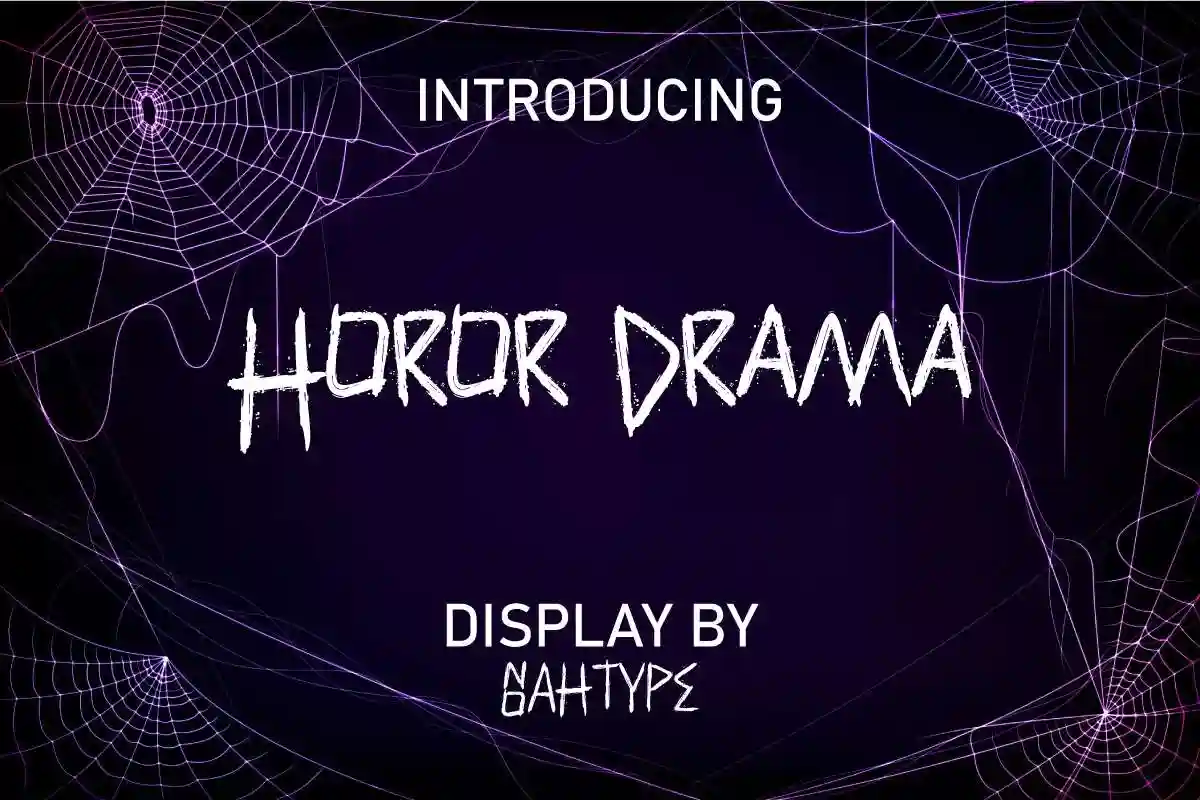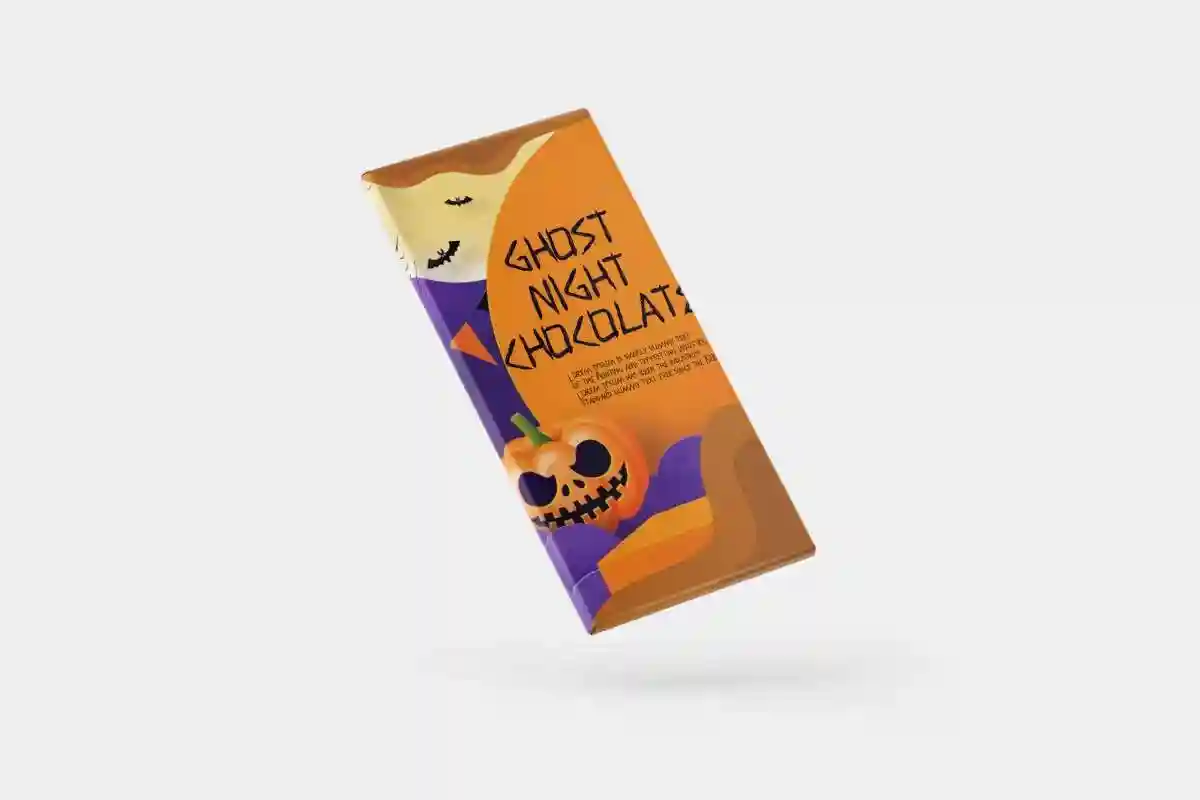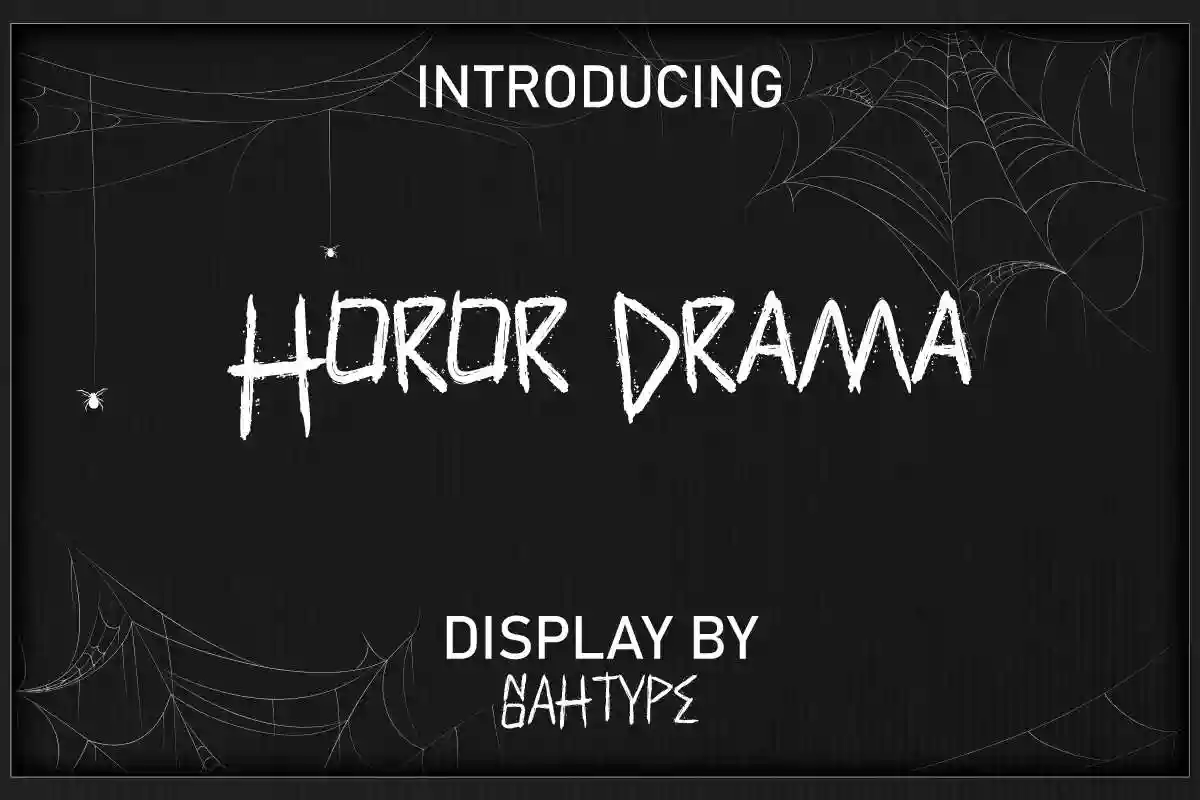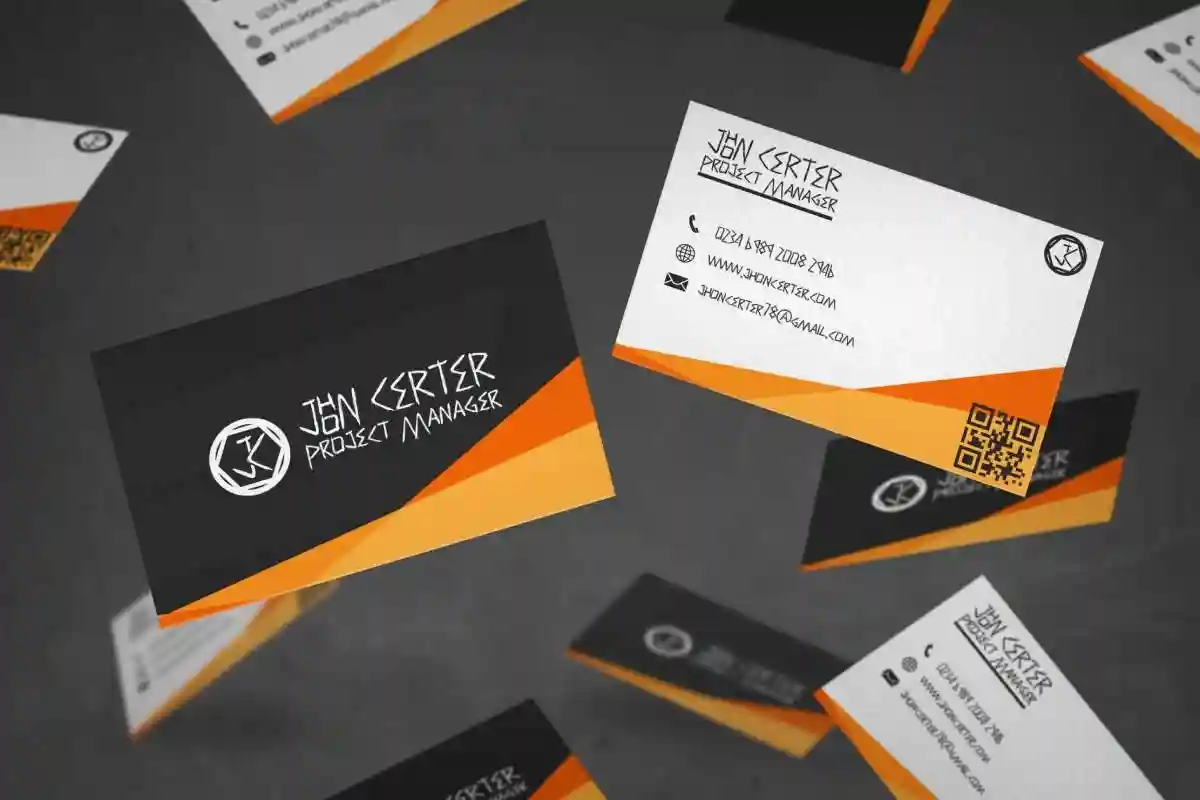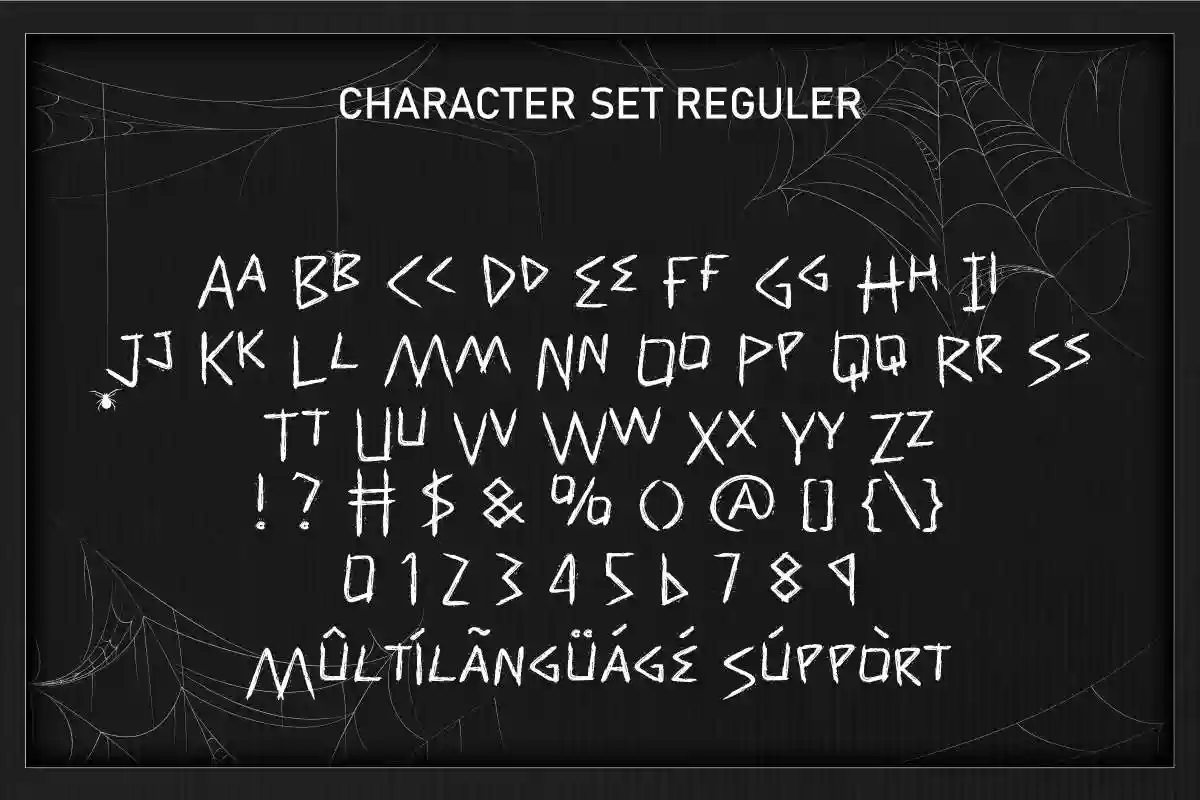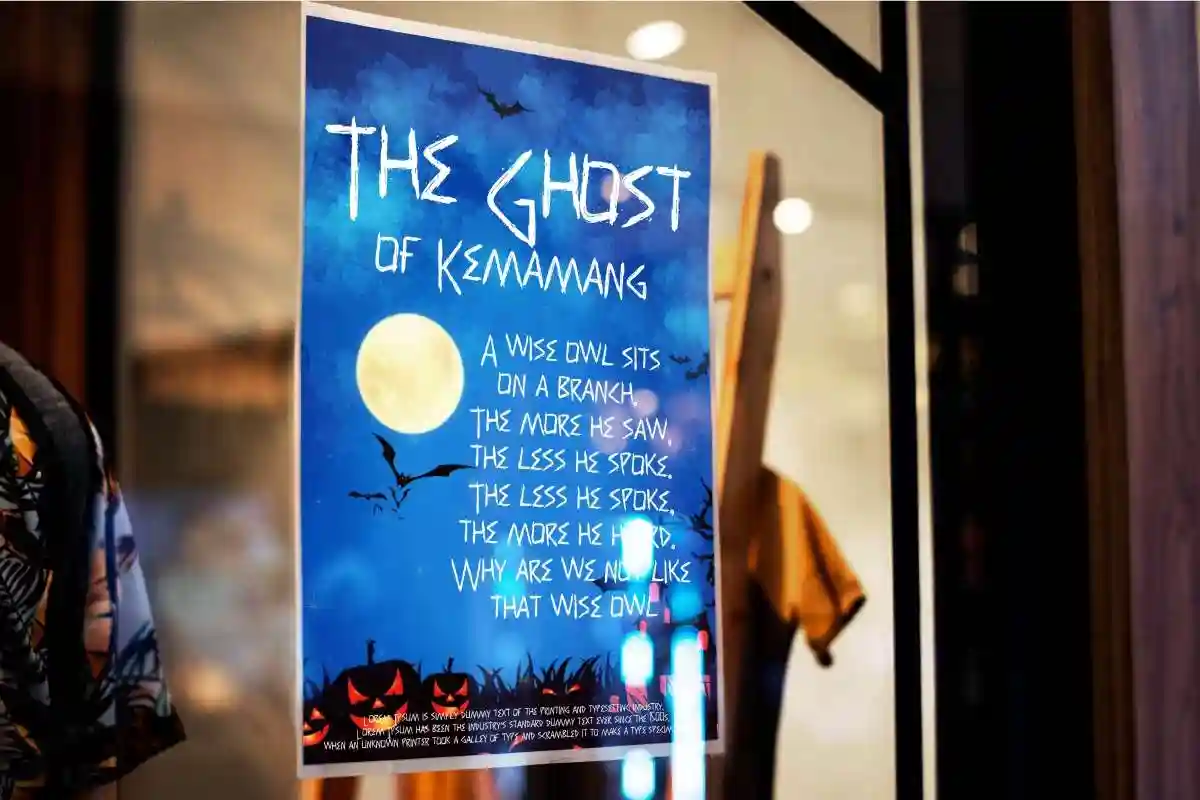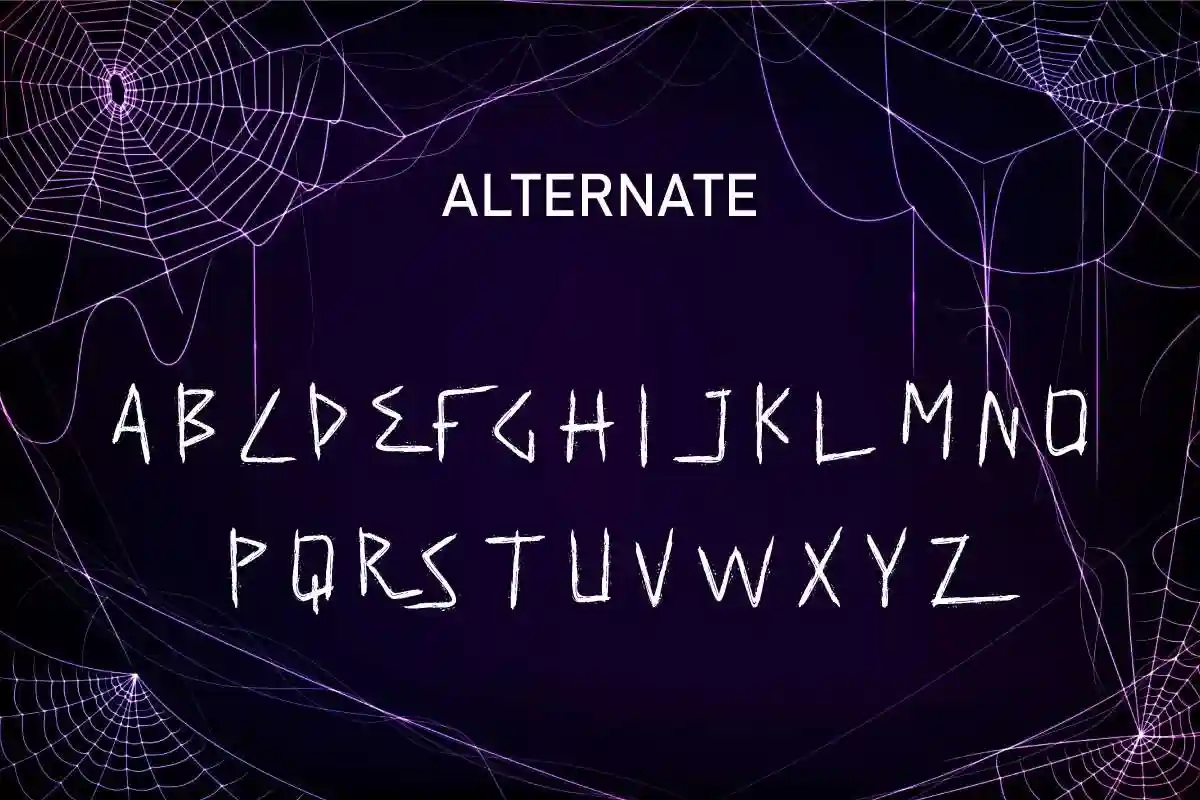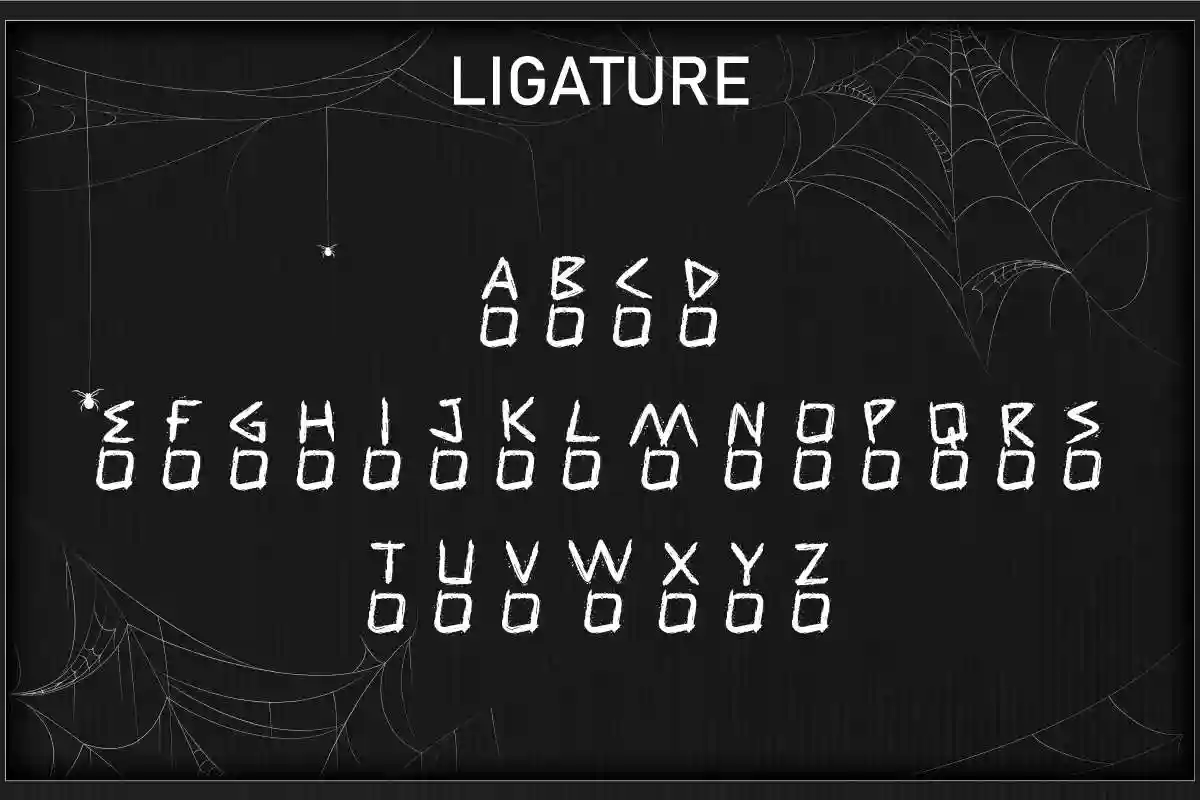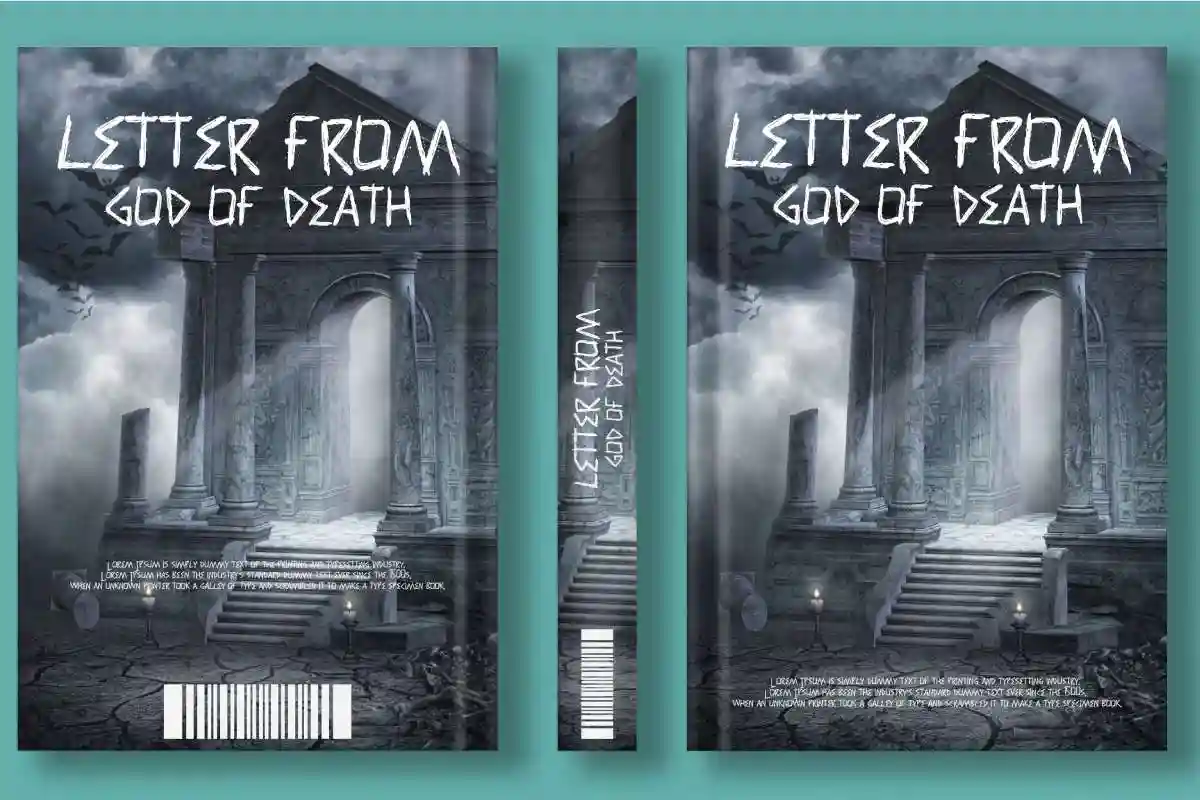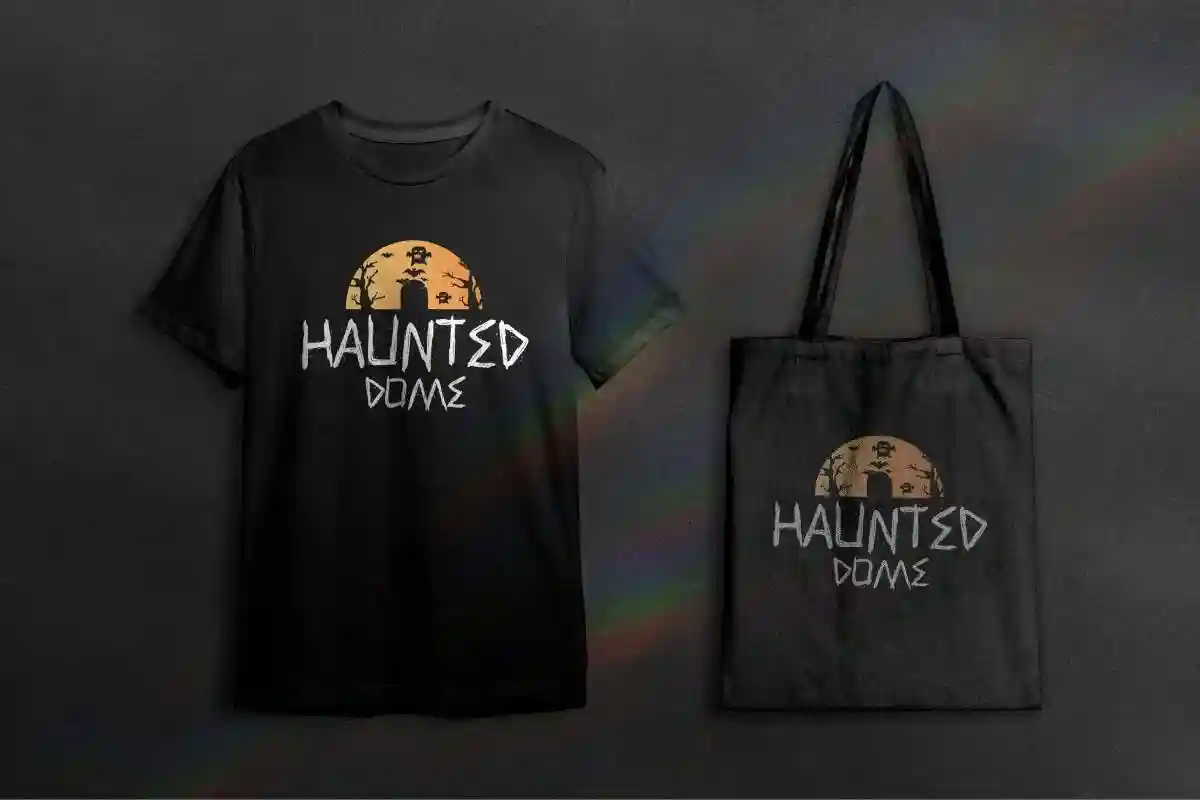
Horor Drama is a spooky yet fun display font created by Noahtype. This font has a horror texture that adds a spooky feel to your horror themed projects, basically inspired by horror drama. It will be suitable for many industry: author, broadcasting, café, fashion, festival, food brand, movie, publishing, and many more.
Horor Drama Font includes set of Uppercase and Lowercase Basic Characters, Numerals and Punctuation. Also it contains alternate and ligature characters options that you can select and use to make it standout. This font will be perfect for your projects that need a mysterious vibe such as billboard, blog headers, brochure, business card, creating logo, custom printing, flyer, headline, invitation, label, poster, product packaging, signage, etc.
Step into the dark side of design with Horor Drama Display Font, a spine-tingling typeface that brings eerie elegance and haunting drama to every project. Designed with bold strokes, sharp edges, and unsettling curves, this font is perfect for creating an atmosphere of mystery, suspense, and pure horror. Whether you’re working on Halloween posters, thriller book covers, or horror movie titles, this display font will make your audience’s skin crawl—in the best way possible.